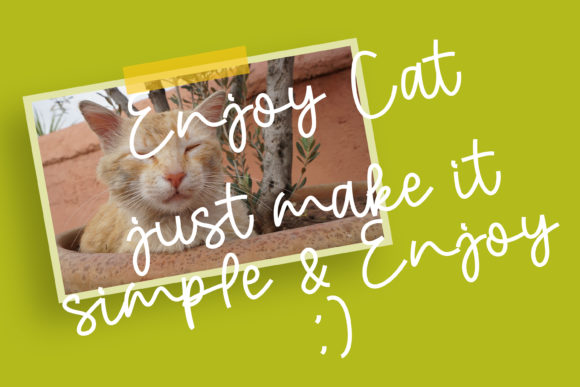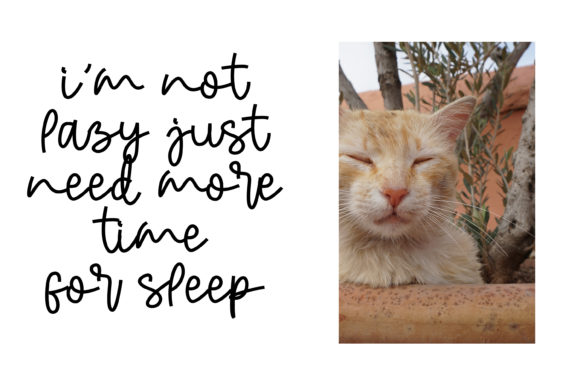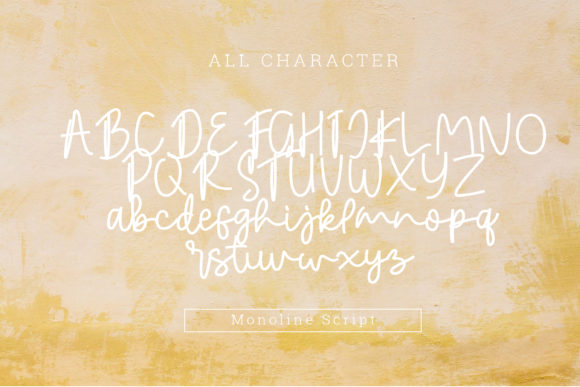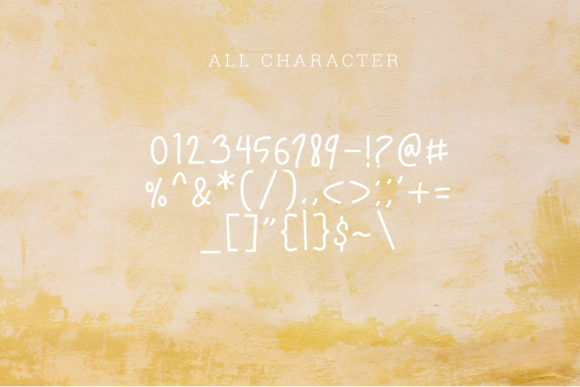
Demen Lemonade Font: A Refreshing Addition to Your Creative Projects
Are you tired of using the same old fonts in your creative projects? Look no further than the Demen Lemonade font, a cute and charming handwritten font that’s sure to add a touch of personality to your designs. In this article, we’ll take a closer look at the Demen Lemonade font, its features, and how you can use it to bring your creative ideas to life.
What is Demen Lemonade Font?
Demen Lemonade is a beautiful, handcrafted font that’s perfect for adding a personal touch to your designs. With its playful and whimsical feel, this font is ideal for use in a variety of creative projects, from crafting and scrapbooking to branding and advertising. Whether you’re a designer, crafter, or DIY enthusiast, the Demen Lemonade font is sure to inspire your creativity and help you stand out from the crowd.
Features of Demen Lemonade Font
So, what makes the Demen Lemonade font so special? Here are just a few of its key features:
- Handwritten style: The Demen Lemonade font has a charming, handwritten feel that’s perfect for adding a personal touch to your designs.
- Cute and playful: This font is sure to bring a smile to your face, with its playful and whimsical feel that’s perfect for creative projects.
- Easy to read: Despite its playful feel, the Demen Lemonade font is easy to read, making it perfect for use in a variety of applications.
- Versatile: Whether you’re designing a logo, creating a craft project, or working on a branding campaign, the Demen Lemonade font is versatile enough to use in a variety of creative projects.
How to Use Demen Lemonade Font in Your Creative Projects
Now that we’ve covered the features of the Demen Lemonade font, let’s take a look at how you can use it in your creative projects. Here are a few ideas to get you started:
- Crafting and scrapbooking: Add a personal touch to your scrapbook pages, cards, and other craft projects with the Demen Lemonade font.
- Branding and advertising: Use the Demen Lemonade font to create eye-catching logos, ads, and marketing materials that stand out from the crowd.
- Digital design: Add the Demen Lemonade font to your website, social media graphics, or digital art projects for a touch of personality.
- Stationery and invitations: Use the Demen Lemonade font to create beautiful, handwritten-style stationery and invitations that are sure to impress.
Tips for Getting the Most Out of Demen Lemonade Font
To get the most out of the Demen Lemonade font, here are a few tips to keep in mind:
- Experiment with colors: The Demen Lemonade font looks great in a variety of colors, so don’t be afraid to experiment and find the perfect hue for your project.
- Mix and match: Combine the Demen Lemonade font with other fonts and design elements to create a unique and eye-catching look.
- Keep it simple: Don’t overcomplicate your design – sometimes, the simplest designs are the most effective.
In conclusion, the Demen Lemonade font is a charming and versatile addition to any creative project. With its handwritten style, cute and playful feel, and ease of use, this font is sure to inspire your creativity and help you stand out from the crowd. Whether you’re a designer, crafter, or DIY enthusiast, the Demen Lemonade font is a must-have for any creative project. So why wait? Add the Demen Lemonade font to your favorite creative ideas and watch them come alive!